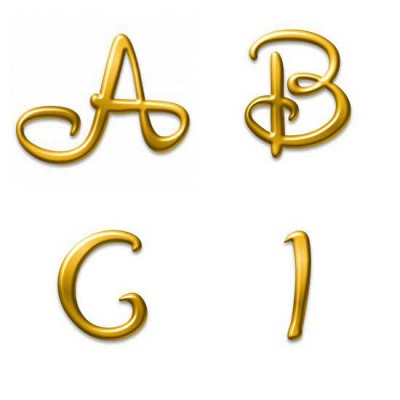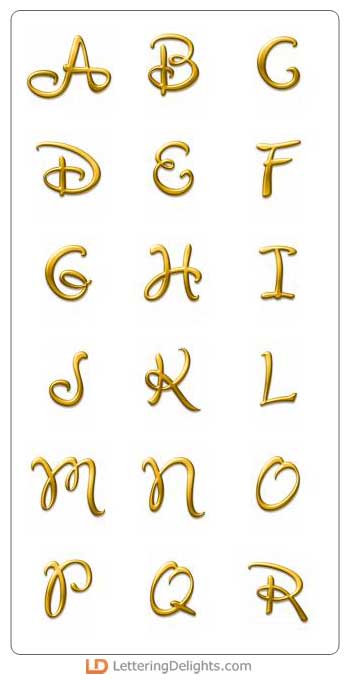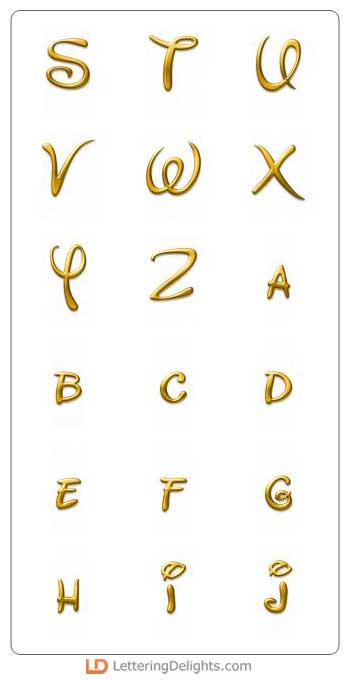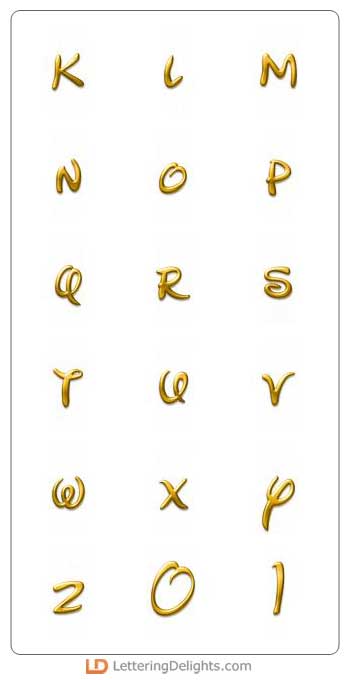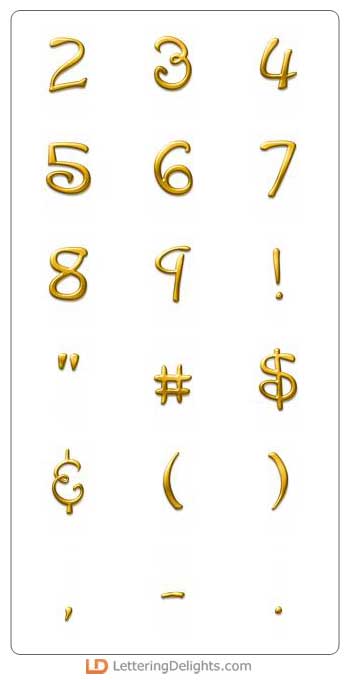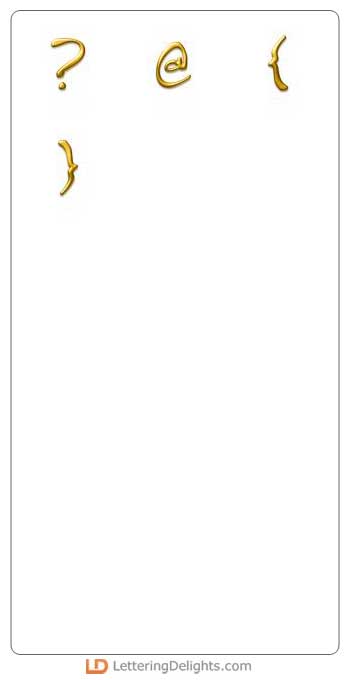
This golden Alphabet is reminiscent of our children's favorite cartoon creator. Know anybody named Walt? Ever seen his handwriting? Well, here it is (at least a similar style). You will enjoy using it for your theme park titles, invitations etc. (And it's much cleaner and nicer-looking than any other version out there.) All images are 300 dpi .png files.